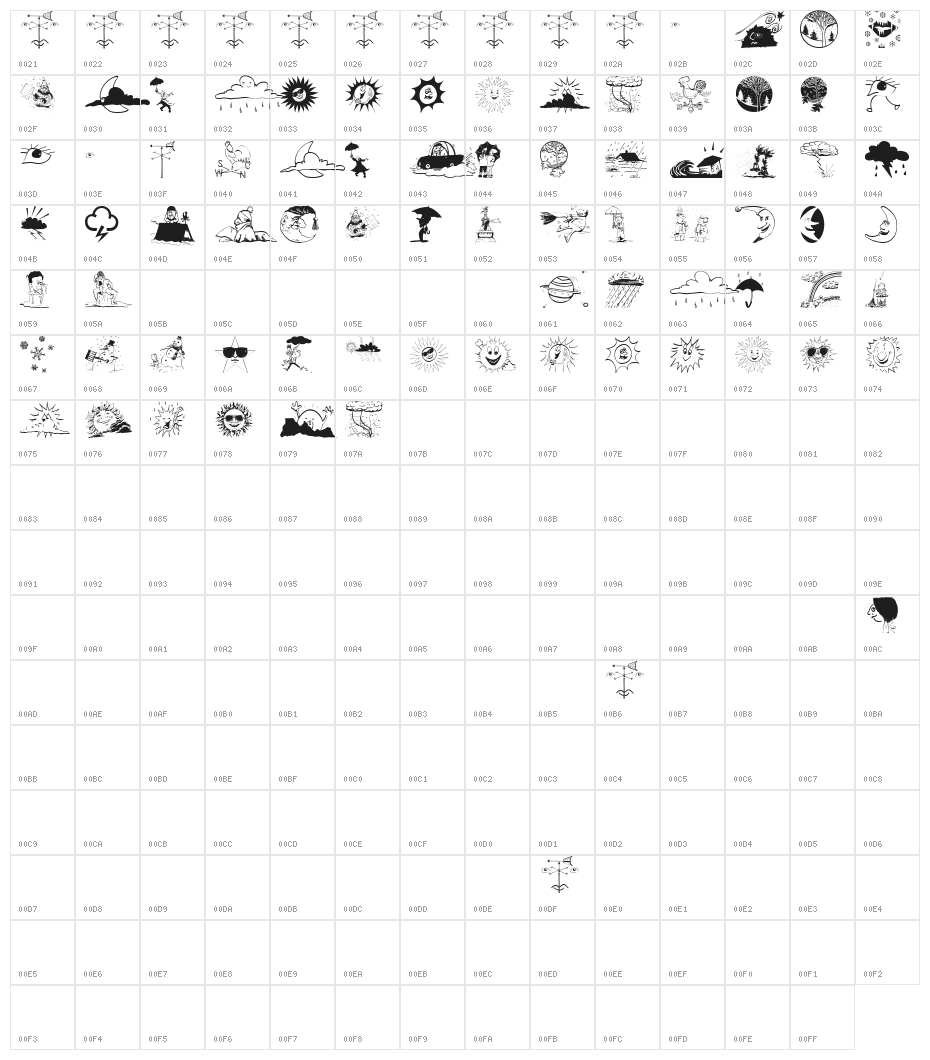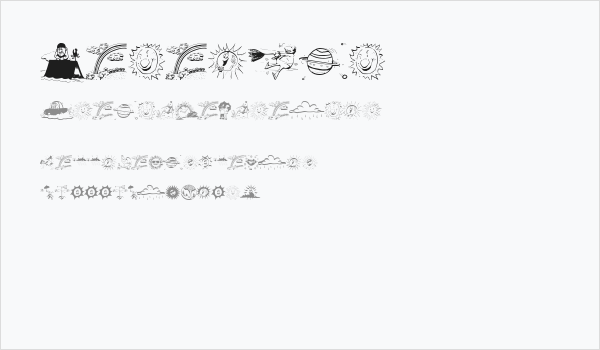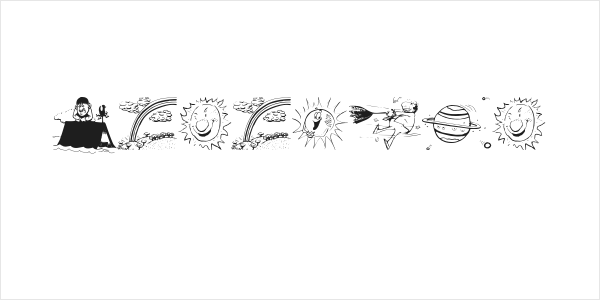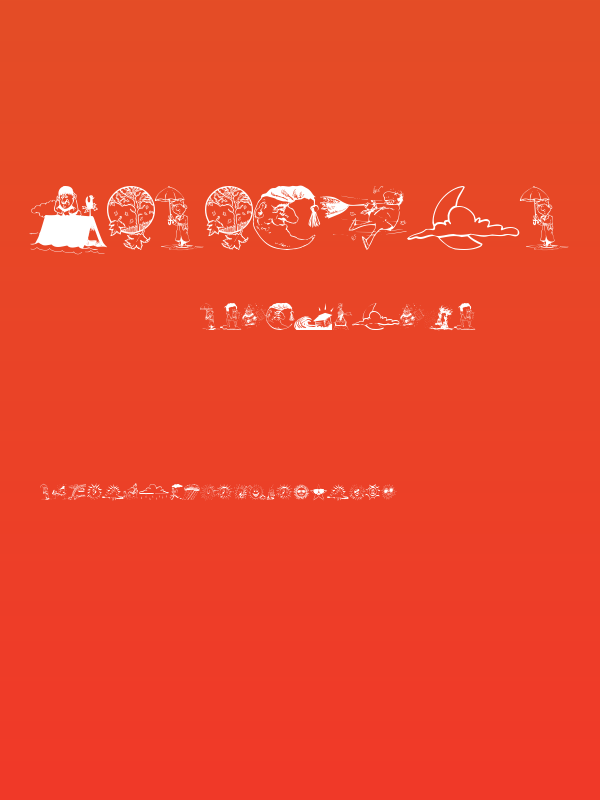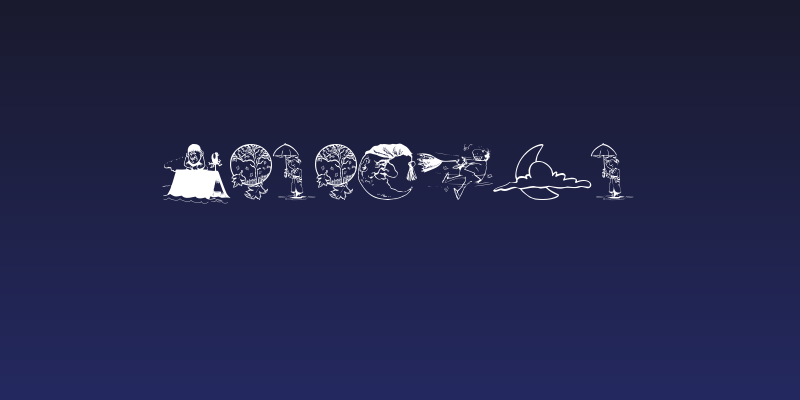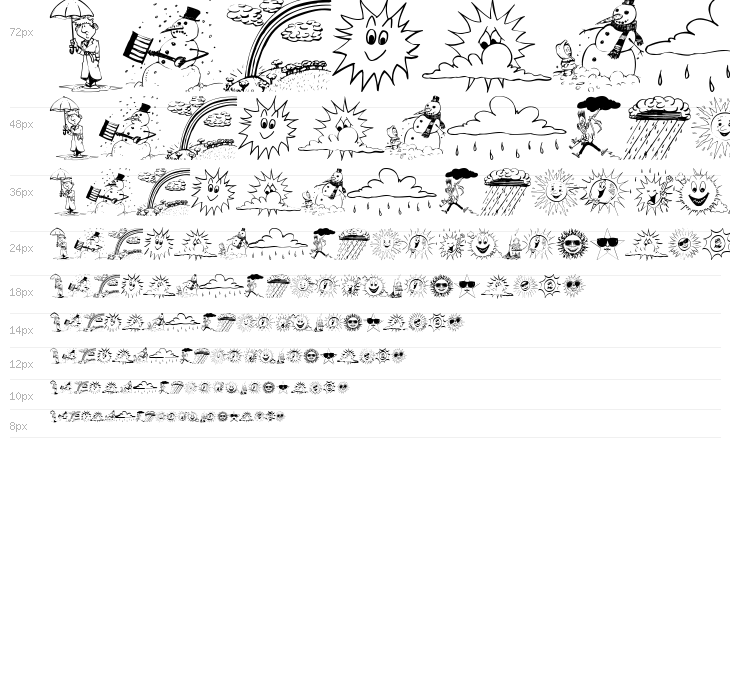
MeteoSat Font
MeteoSat Description
A playful, hand-drawn dingbat font featuring whimsical weather-themed illustrations such as clouds, sun, rain, wind, and various characters interacting with meteorological elements. The glyphs are highly decorative, each representing a unique scene or icon rather than standard alphanumeric characters.
| Overall Style | Whimsical, Decorative, Playful |
| Use Case | Icons, Illustrations, Thematic dividers, Decorative accents |
| Proposed Projects | ChildrenΓ’β¬β’s books, educational materials, weather apps, greeting cards, decorative posters. |